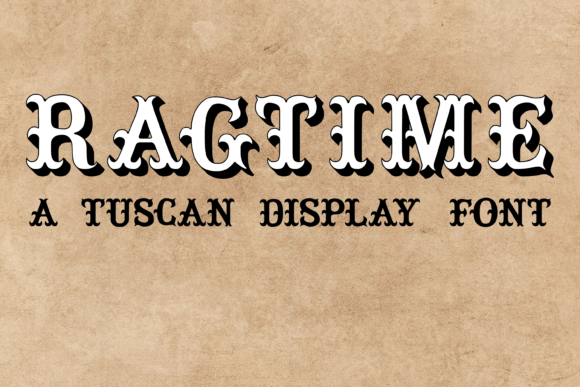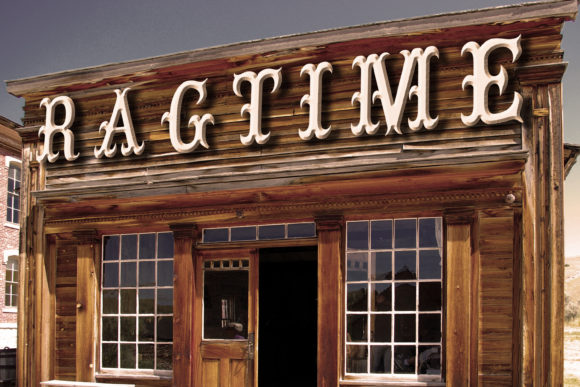
Introduction to Ragtime Font
Ragtime is a bold and dramatic display font.
It has vintage and western influences and it is the ideal font for making your designs stand out Add it confidently to your projects, and you wonโt be disappointed.
Key Features of Ragtime Font